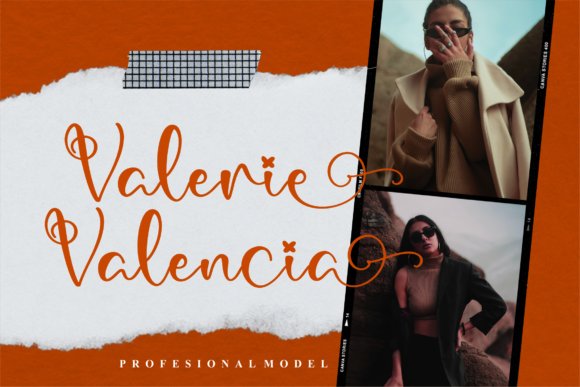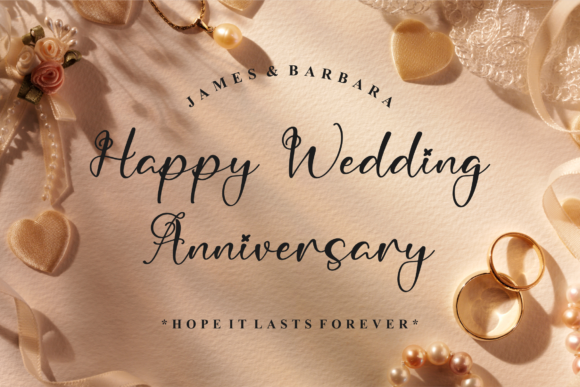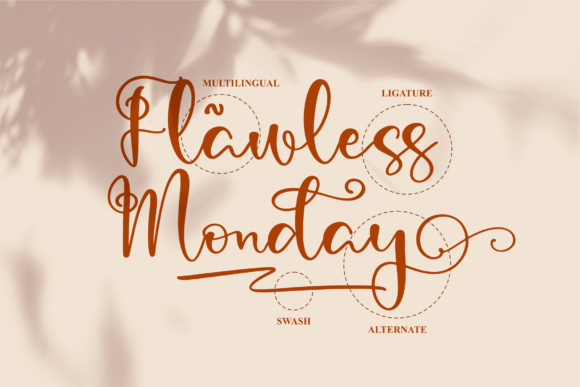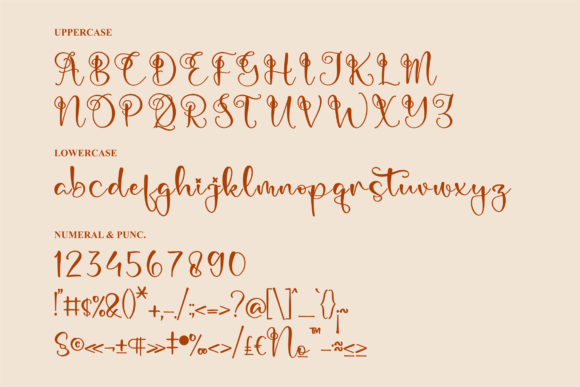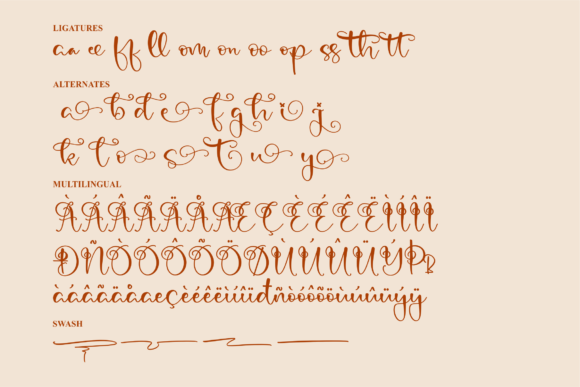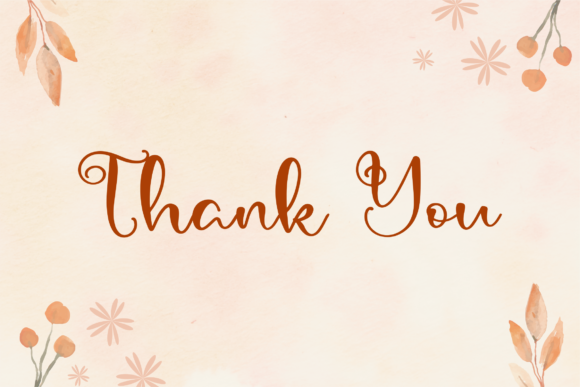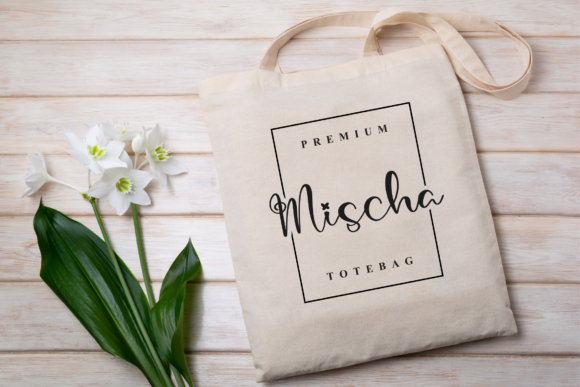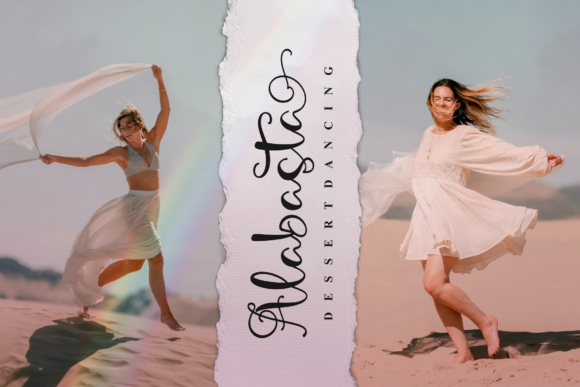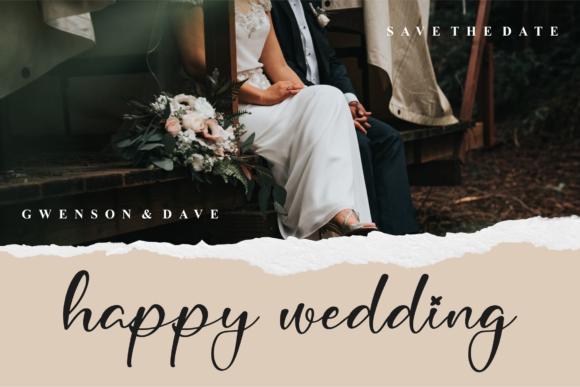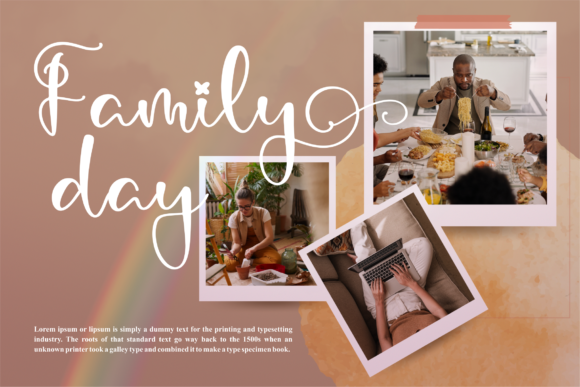
Madiya Dalima Font
About Madiya Dalima Font
Madiya Dalima is a delicate and chic script font. It is PUA encoded which means you can access all of the glyphs and swashes with ease! Add it confidently to your projects, and you will love the results.